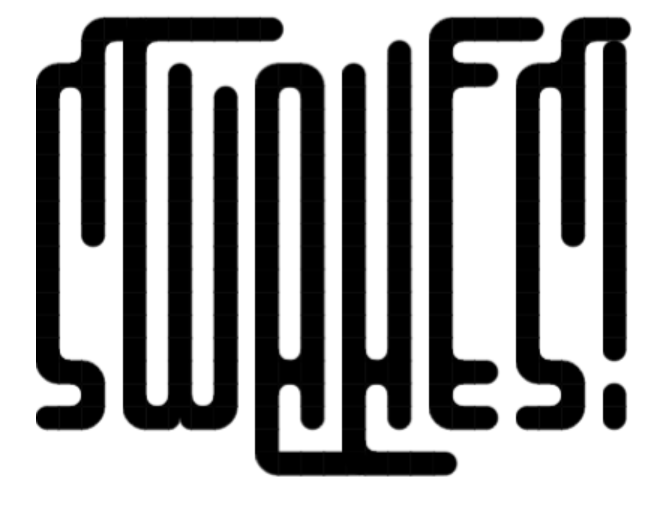
I have to work hard to read this, but I love the funky feel of it! You could give R the same top left corner as B,D and P to distinguish it more clearly from A. An optional small swash on letters like H,K,M,N,R that runs underneath the next letter might also work.
Those are great ideas! I will make the lowercase alternates, and I will incorperate those swashes, thanks four!
@four JUST ADDED SWASHES! also adjusted "R" and "r" Thanks!